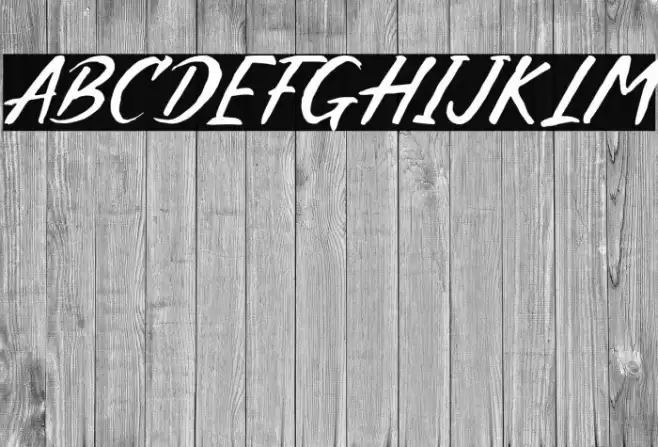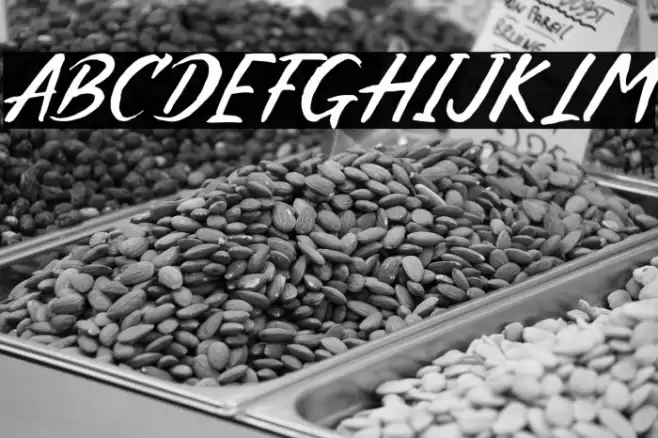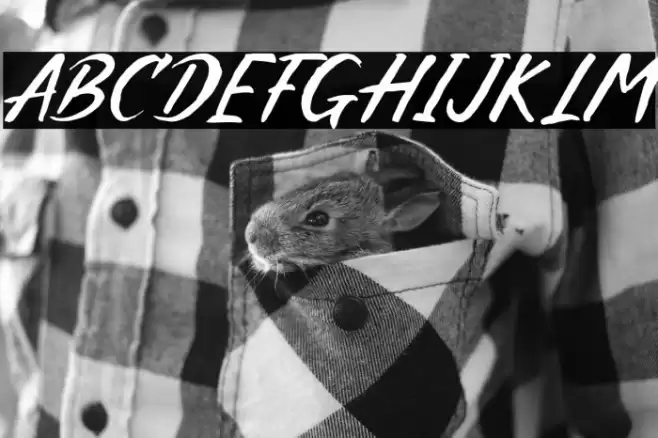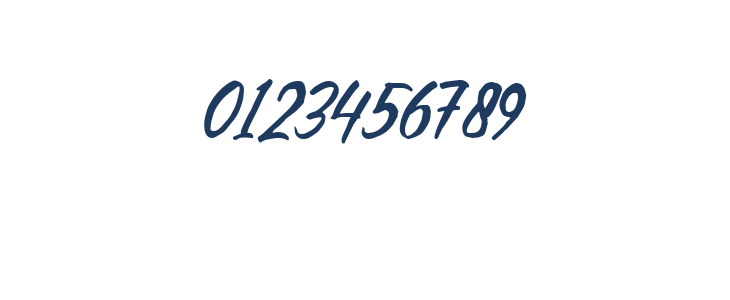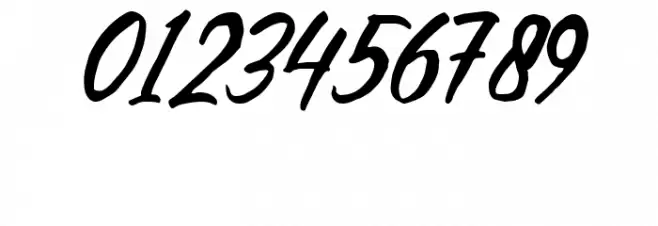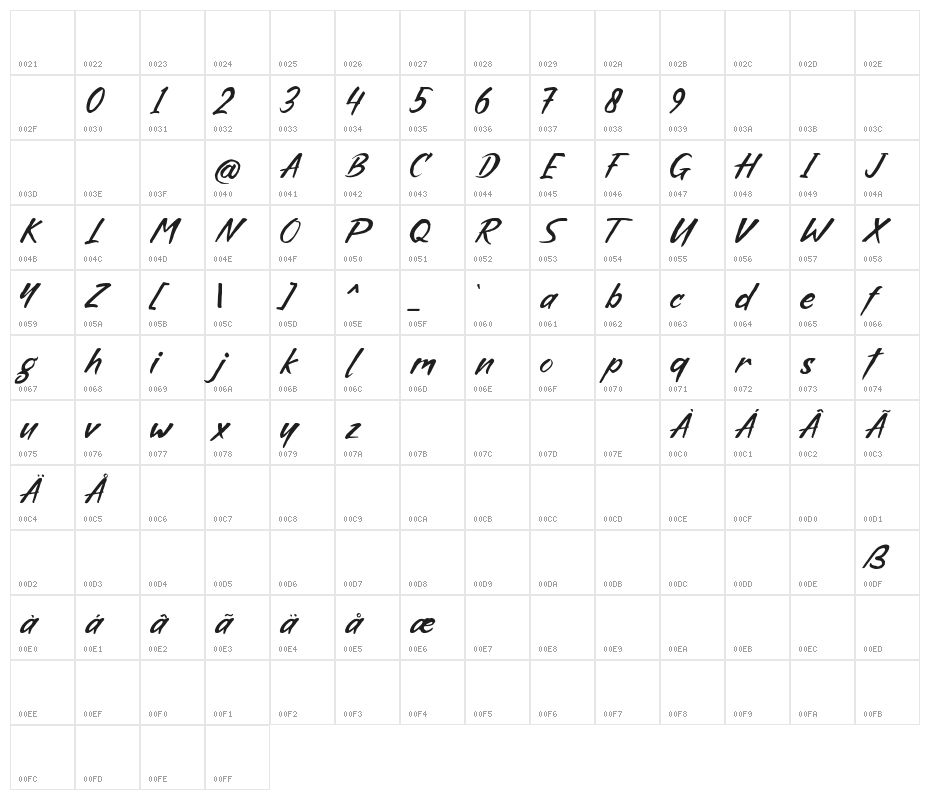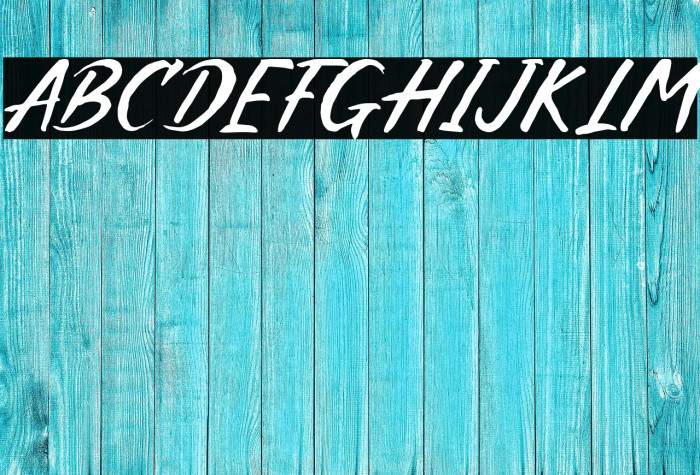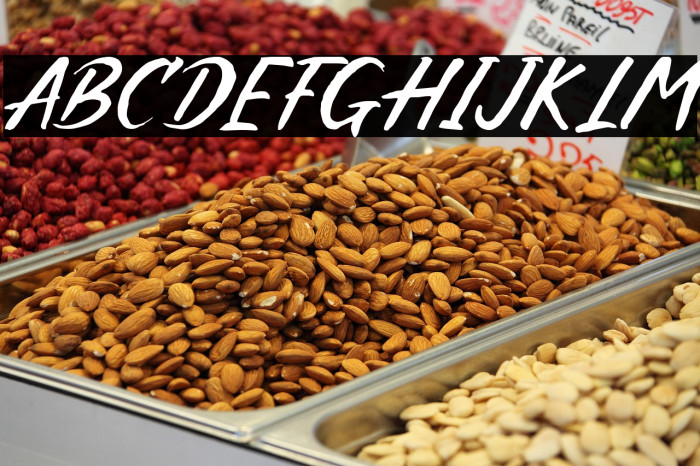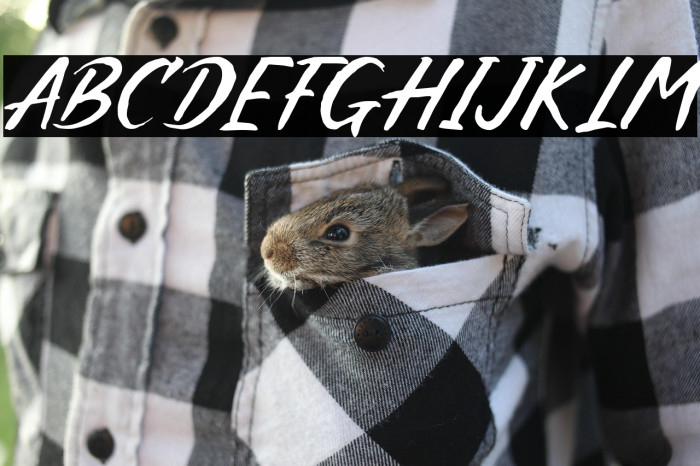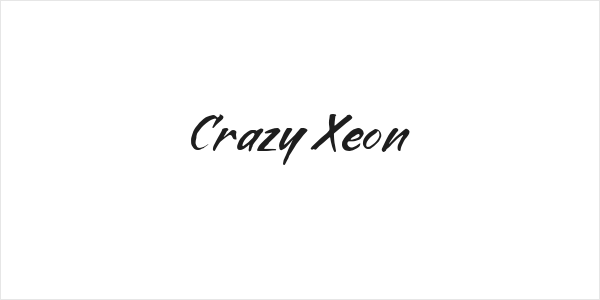
Crazy Xeon Font
Crazy Xeon Description
This font features a dynamic and energetic script style, characterized by its fluid and cursive letterforms. The strokes are bold and slightly slanted, giving the text a sense of movement and flair. The uppercase letters are distinct with sharp angles and smooth curves, while the lowercase letters maintain a consistent flow, enhancing readability. The numerals are equally expressive, matching the overall style of the alphabet. The font's design is suitable for projects that require a touch of elegance and personality, making it ideal for creative and artistic applications.
A bold and dynamic script font with fluid, cursive letterforms from Uncategorized fonts.
- Font: Crazy Xeon
- Proposed Projects: Ideal for branding, invitations, posters, and artistic projects that require a personal touch.
- Use Case: Logos, Headlines, Invitations